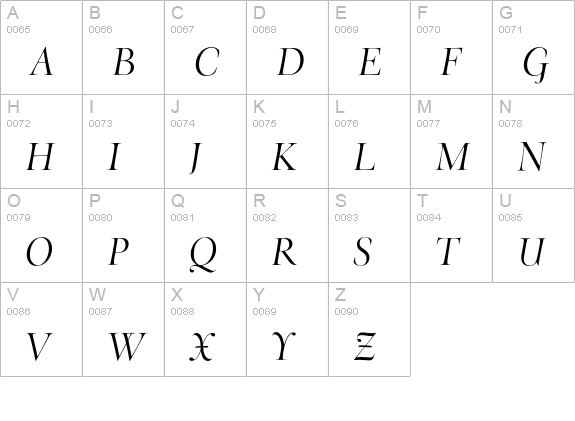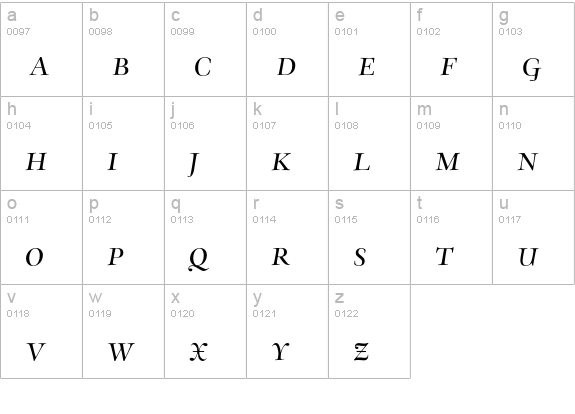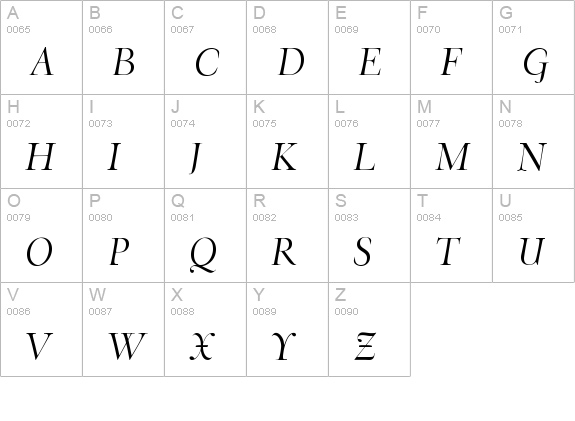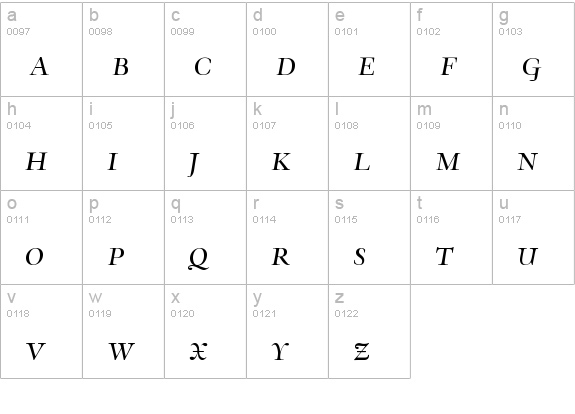
EldoradoDisplay-ItalicSC Font Details
EldoradoDisplay-ItalicSC font is a stylish and elegant typeface that adds a touch of sophistication to any design project. Its italicized form exudes a sense of modernity and flair, making it perfect for use in branding, signage, and editorial design. The graceful curves and unique letterforms of EldoradoDisplay-ItalicSC font make it stand out from the crowd, giving your text a distinctive and eye-catching look. Best of all, EldoradoDisplay-ItalicSC font is available for free download at FontsMarket.com! This means you can easily access this beautiful typeface and use it in your projects without any cost. Whether you're a designer, student, or hobbyist, EldoradoDisplay-ItalicSC font offers a versatile and sophisticated option for your typographic needs. Don't miss out on this amazing opportunity to enhance your designs with this stunning font - download it for free today at FontsMarket.com!